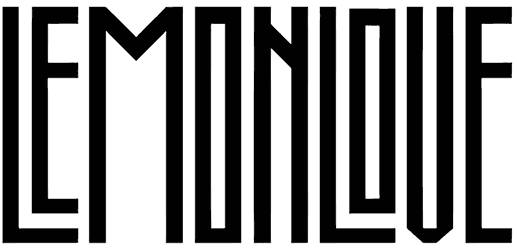
Lemonlove Font
If you want to execute a project as accurately as possible and put all the letters together with exact measurements, we suggest Lemonlove.
This tall font is designed in such a way that placing its letters together can make a maze and turn your design into a perfect example of creativity. So, if you want a guarantee to grab eyeballs, design your logos and posters related to architectural and construction projects, and an introduction to old cities with Lemonlove.
Lemonlove, a condensed display font coming with modern themes. It can be applied to some designs such as logotypes, brands, packaging, quotes, t-shirts, book covers, and other custom designs.